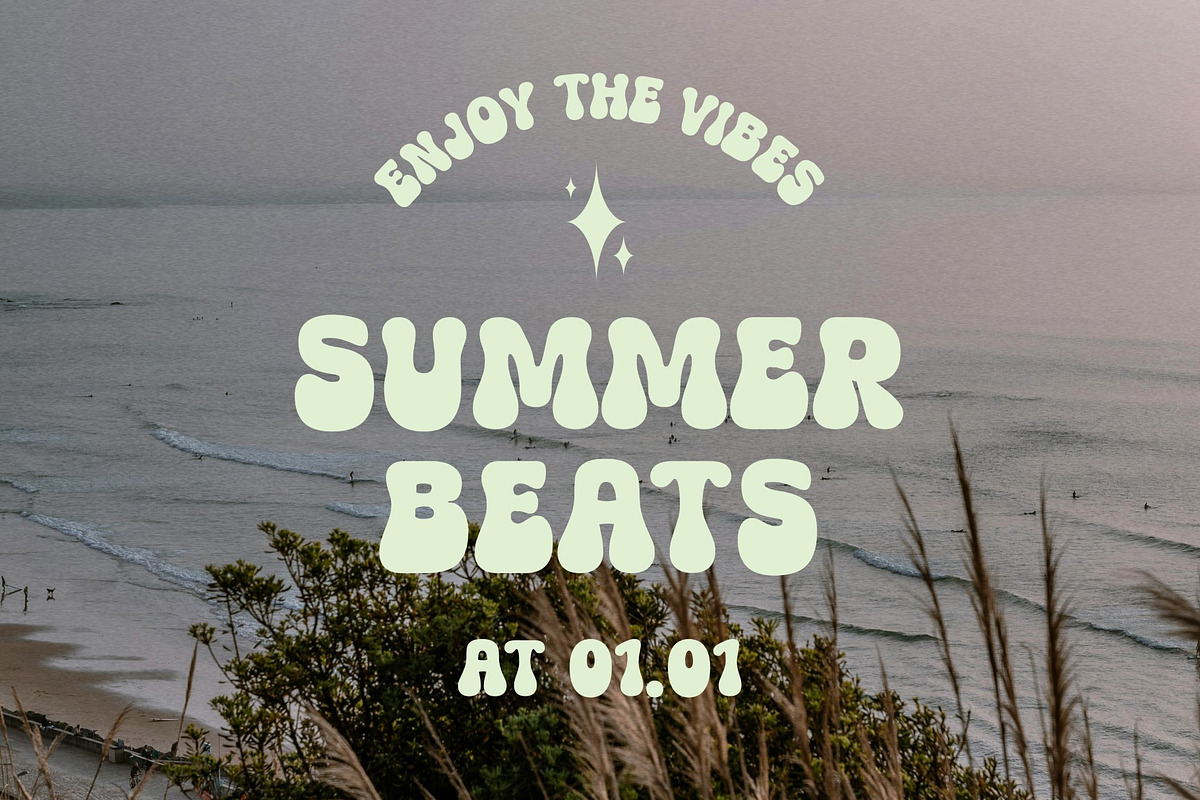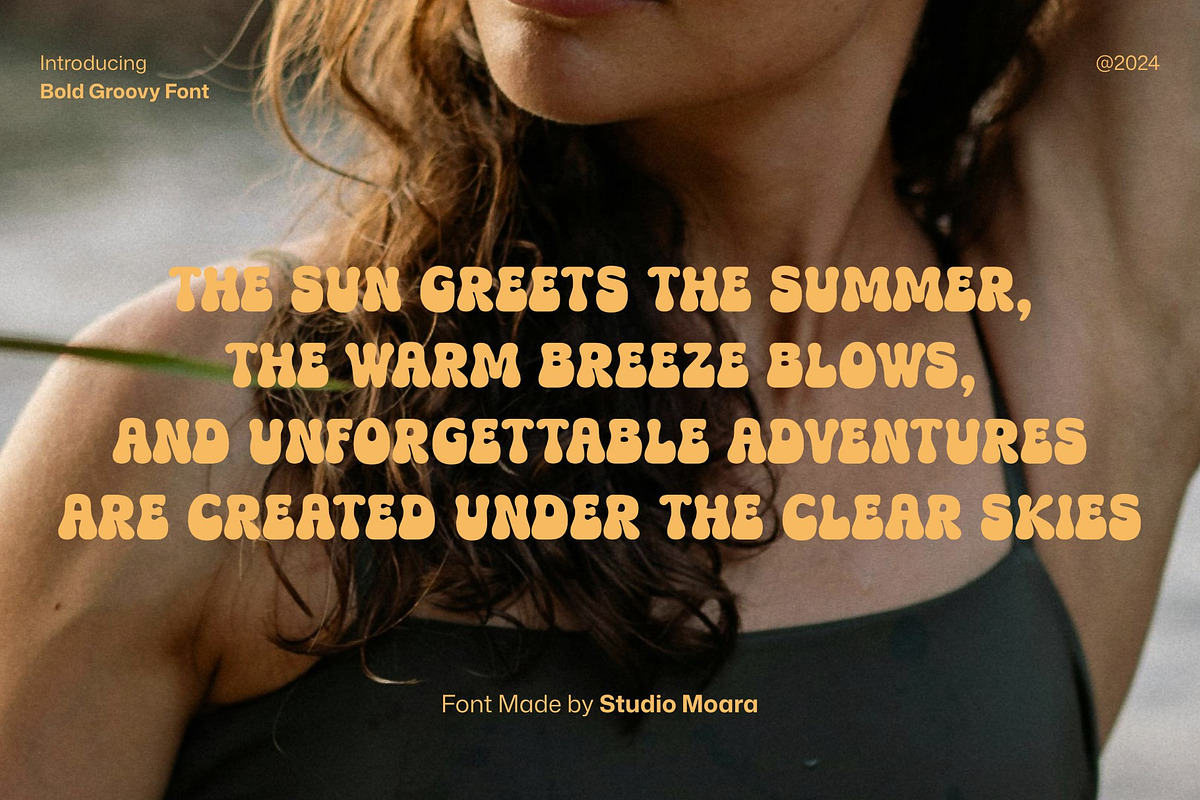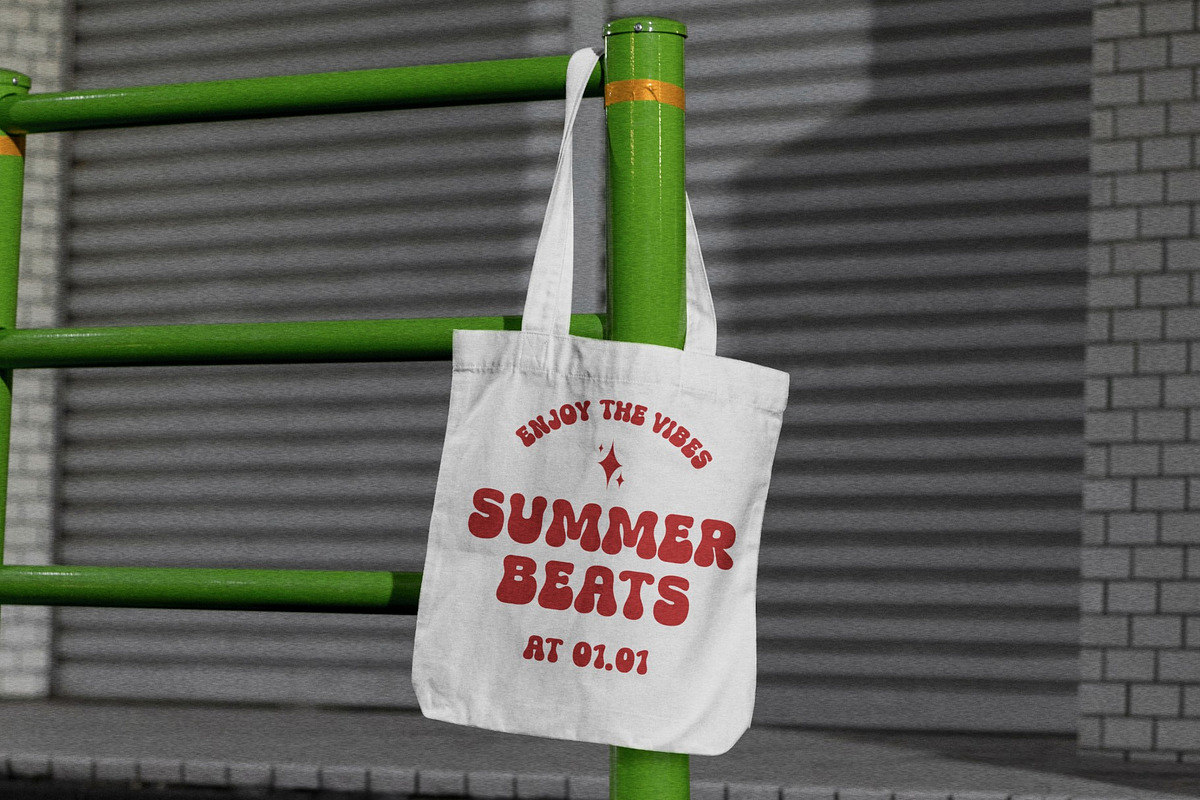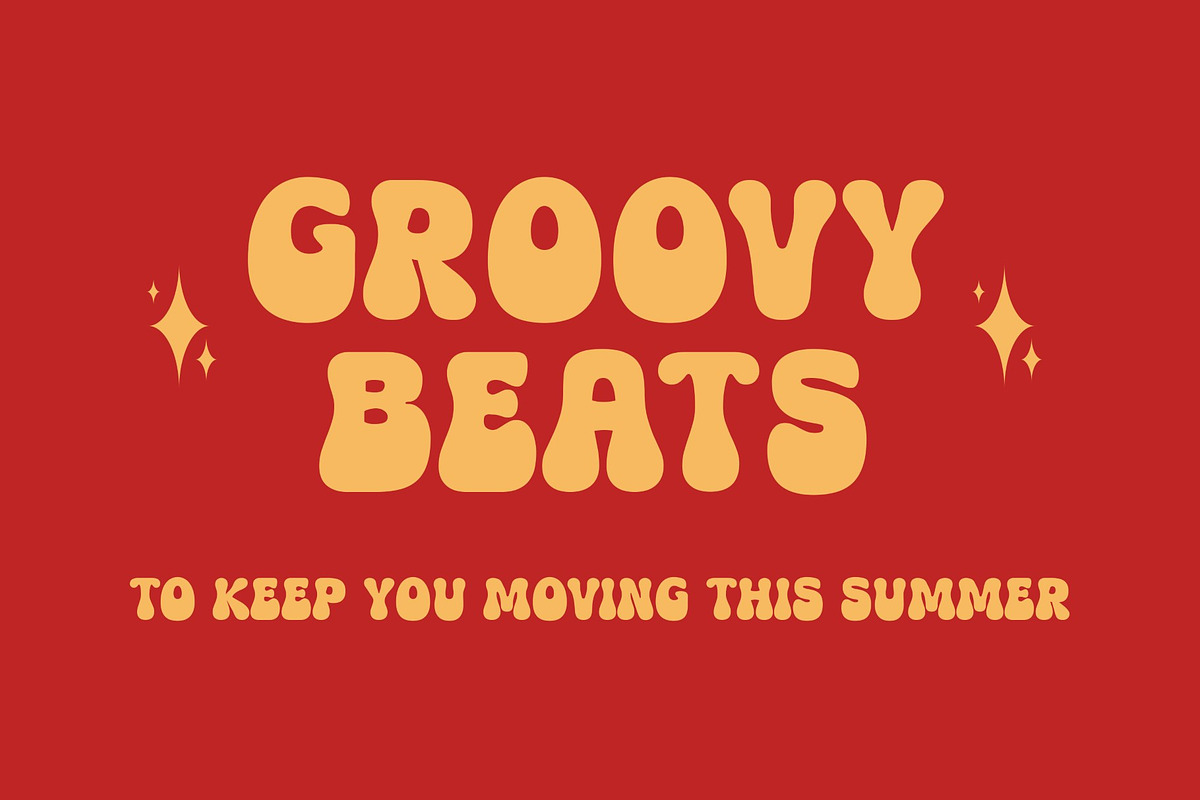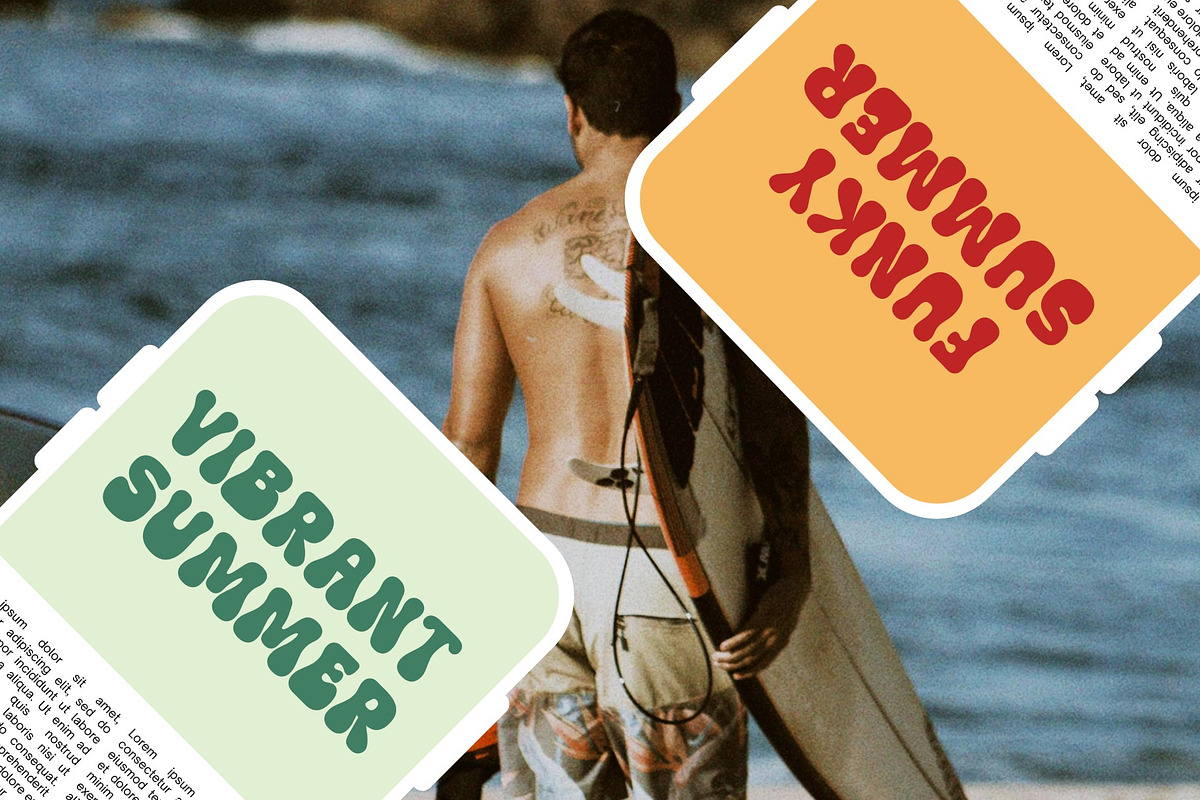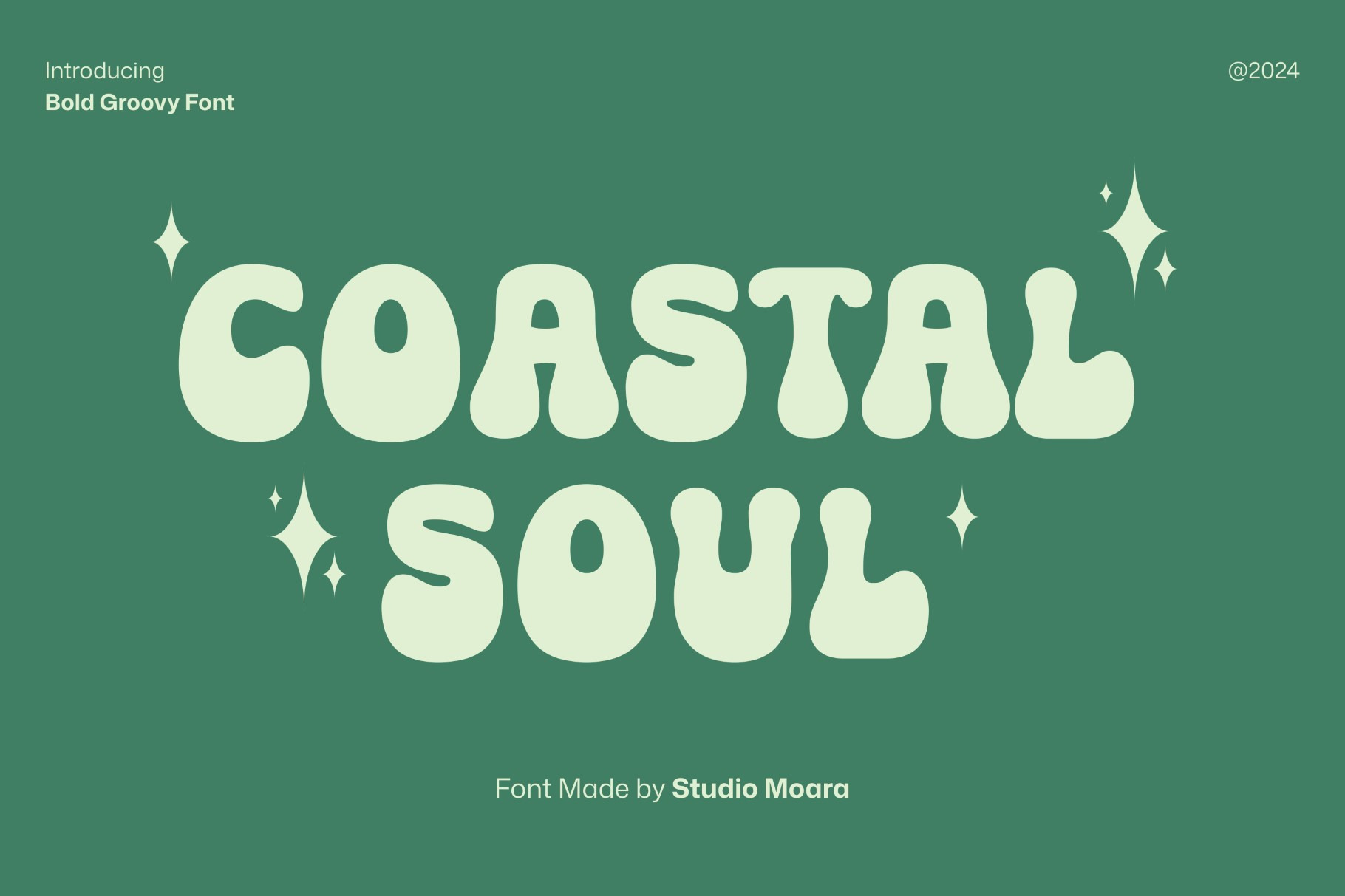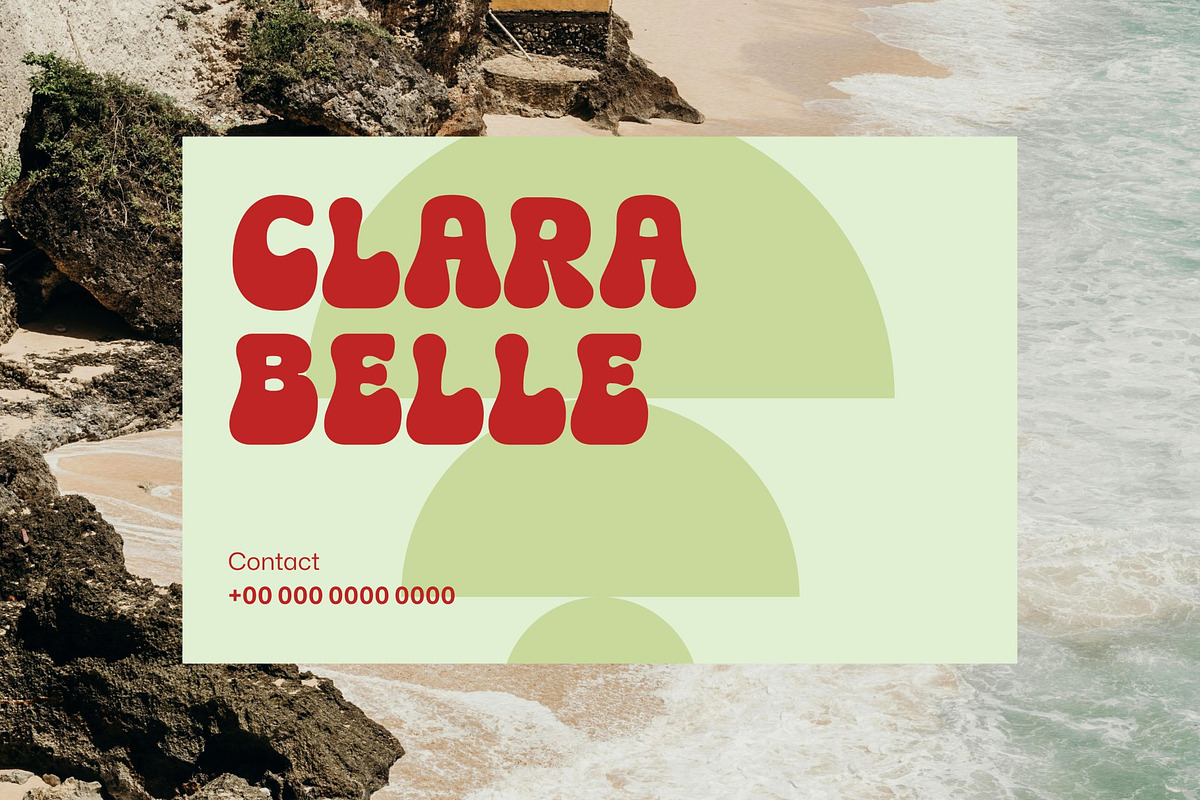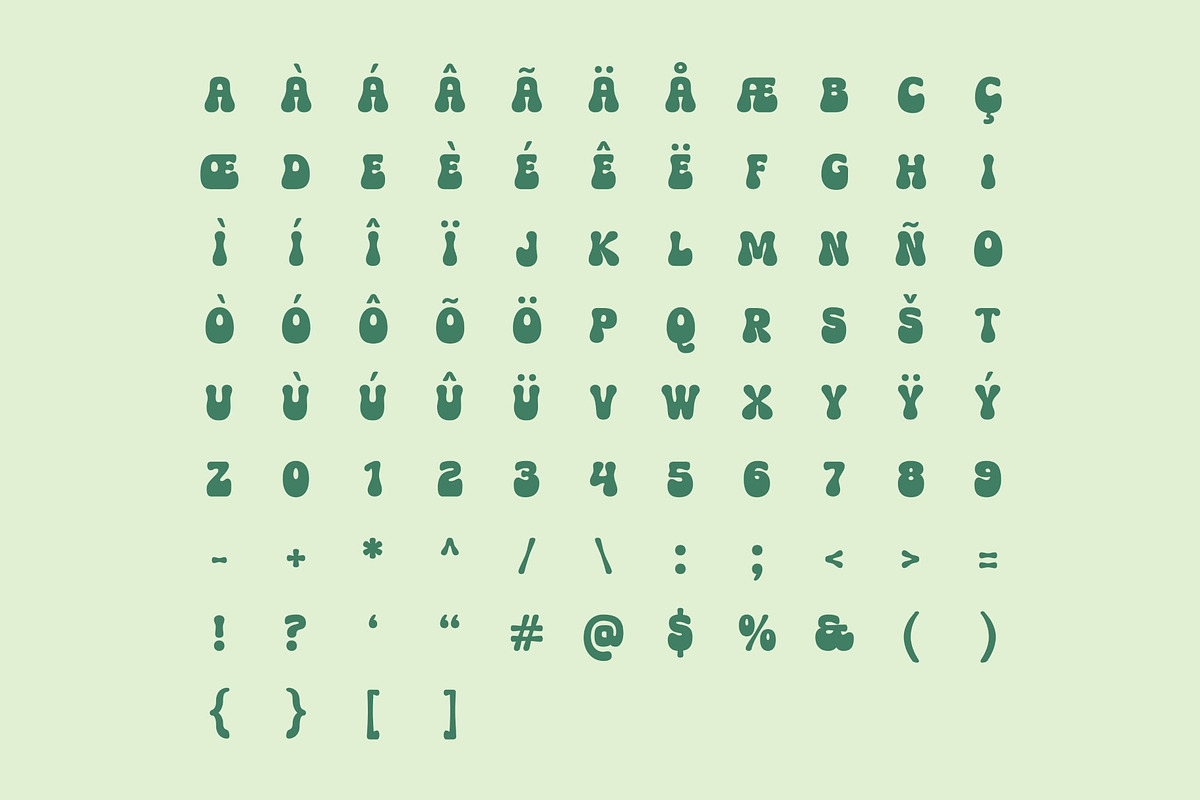
Coasta Soul - Groovy Display Font
Embark on a typographic journey with Coasta Soul, the groovy display font that breathes life into your designs. This font's retro vibes and fluid letterforms transport you straight to the heart of the '70s, creating a captivating and soulful aesthetic. Perfect for posters, album covers, and branding, Coasta Soul brings a dose of laid-back charm to any project. Let your creativity flow with this groovy font, infusing your designs with the spirit of an era defined by freedom and expression.